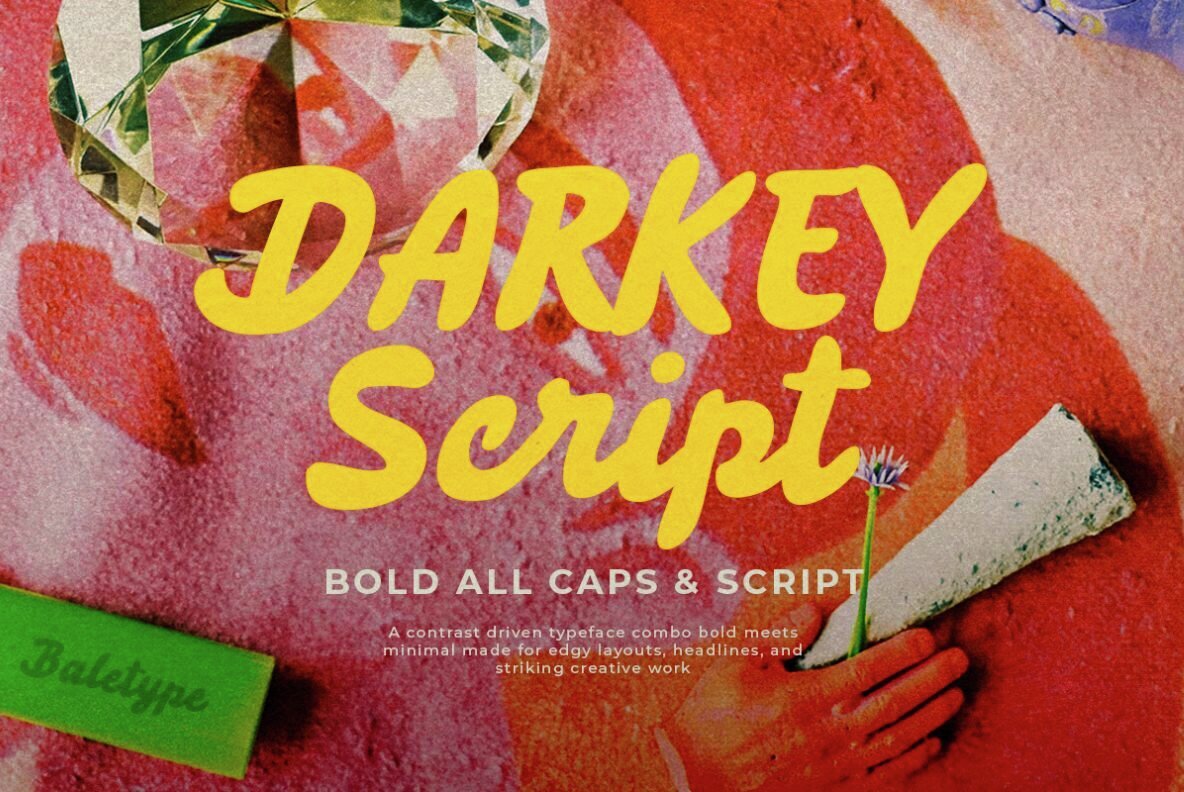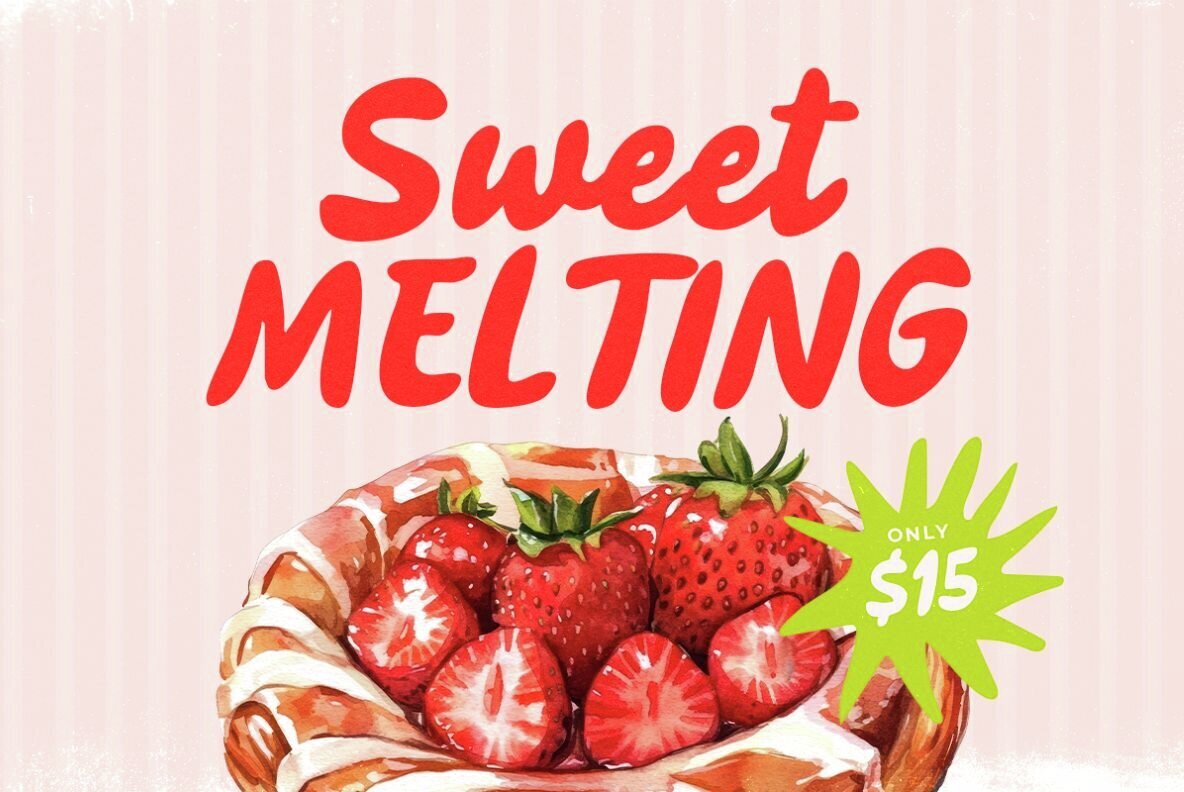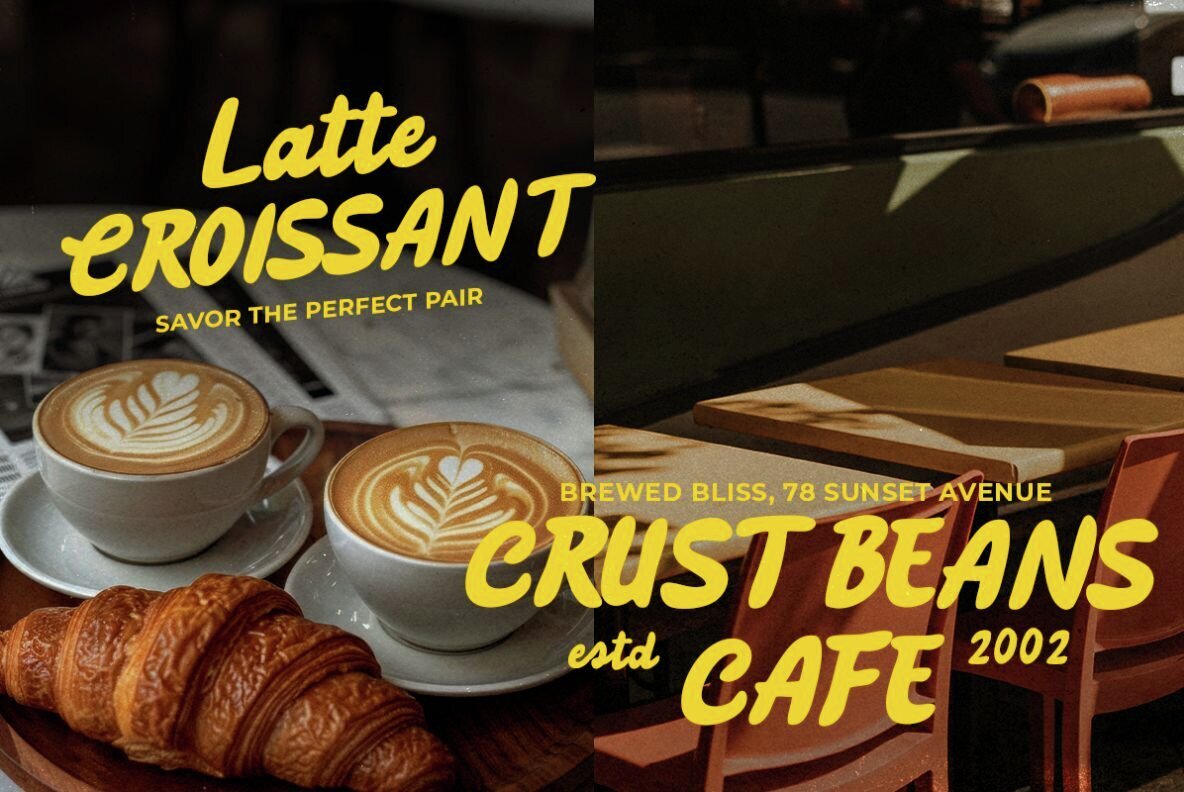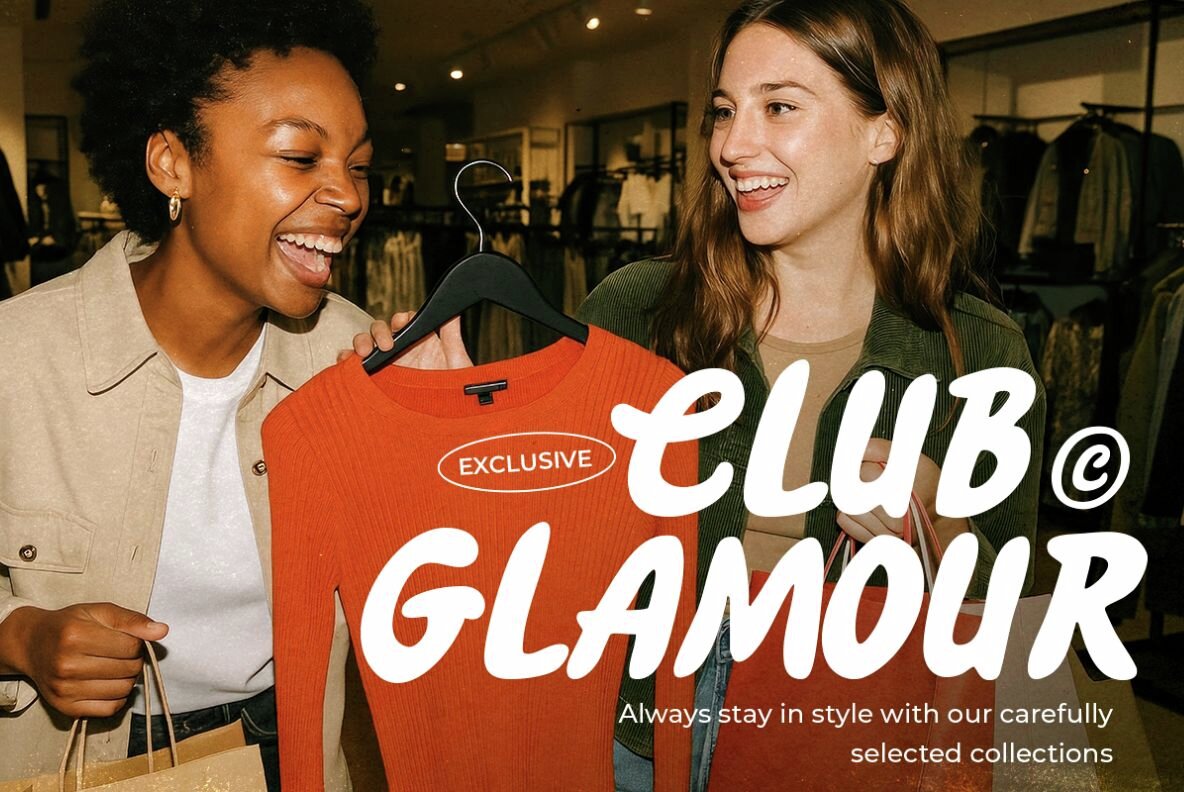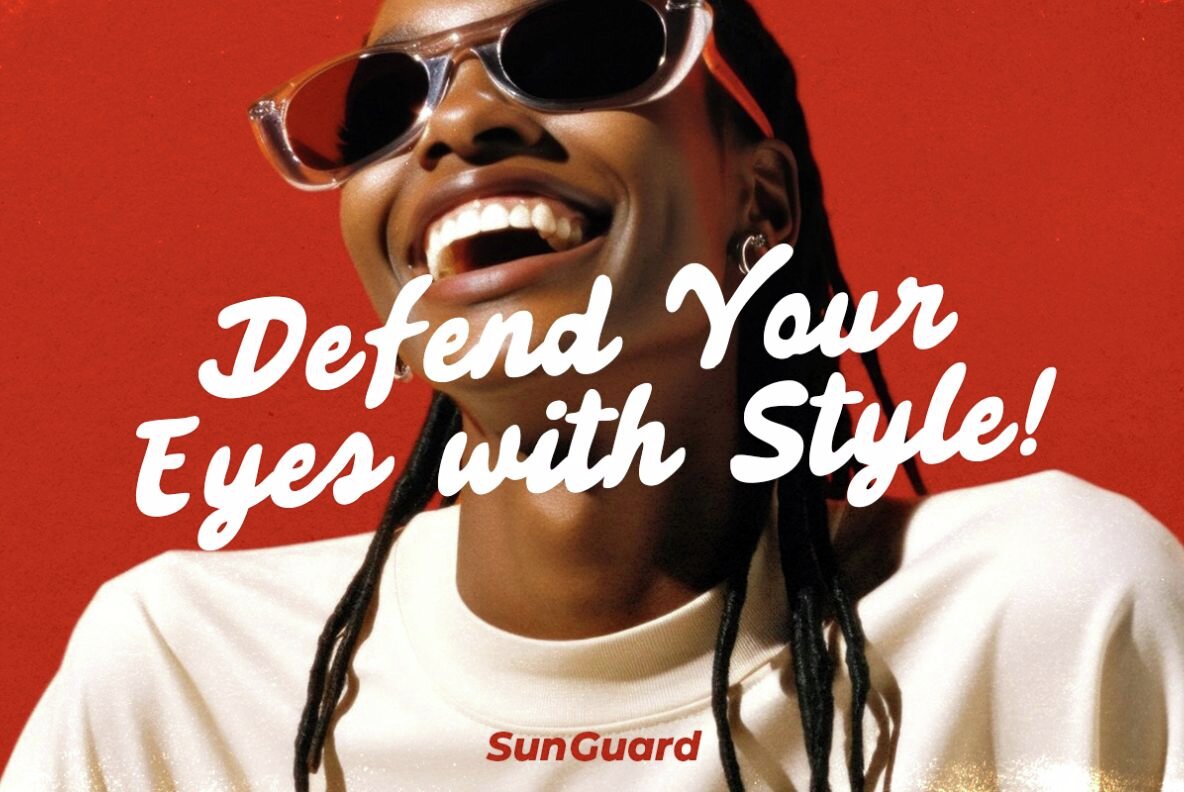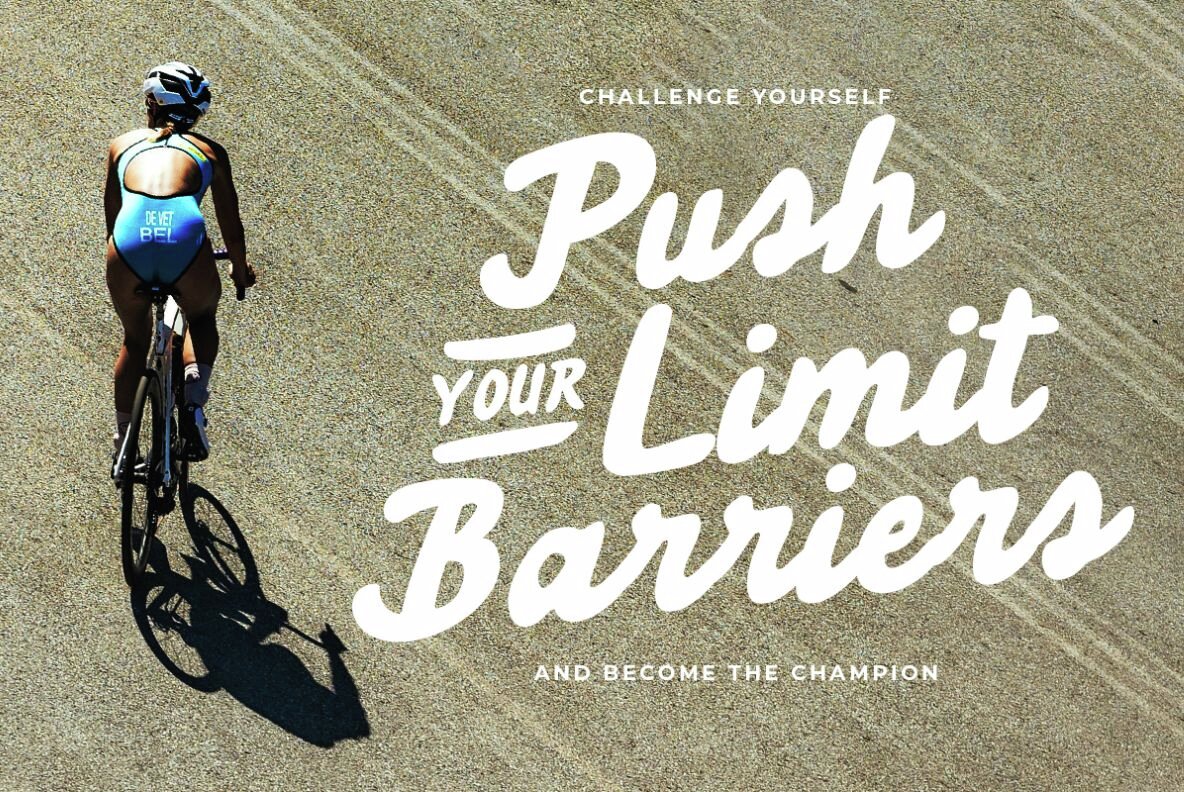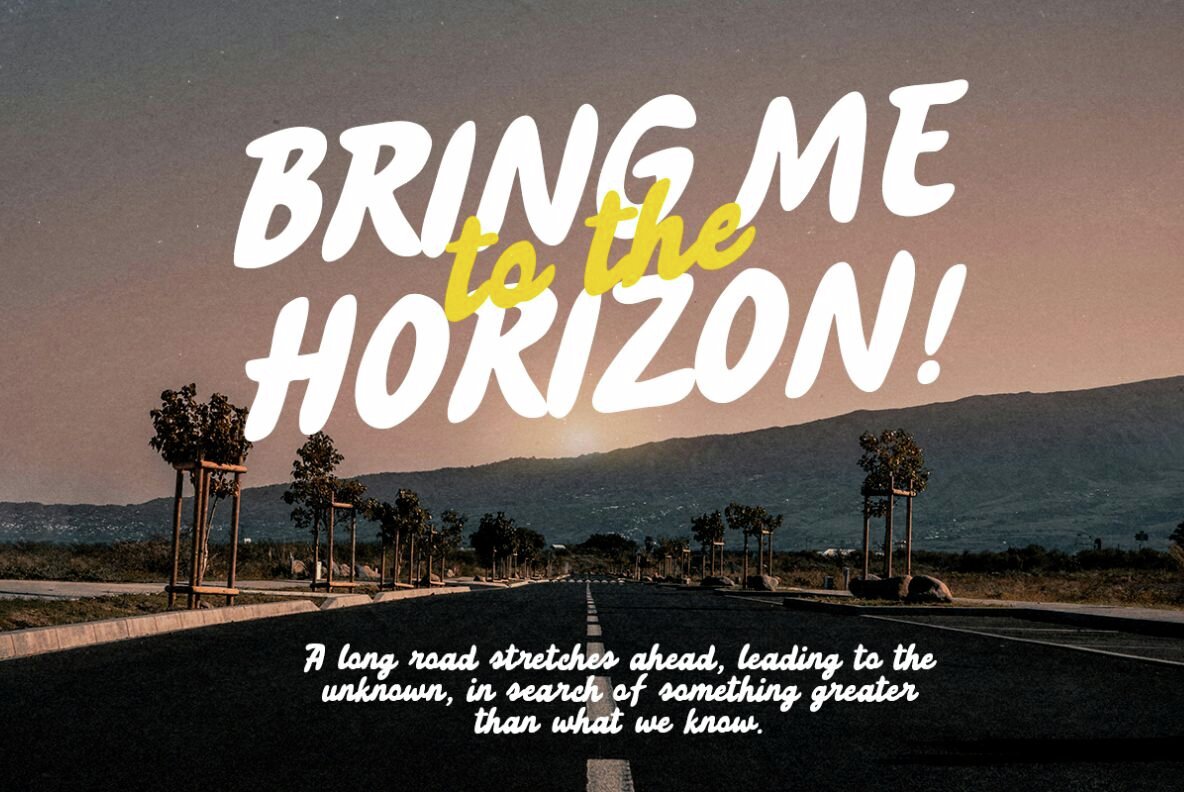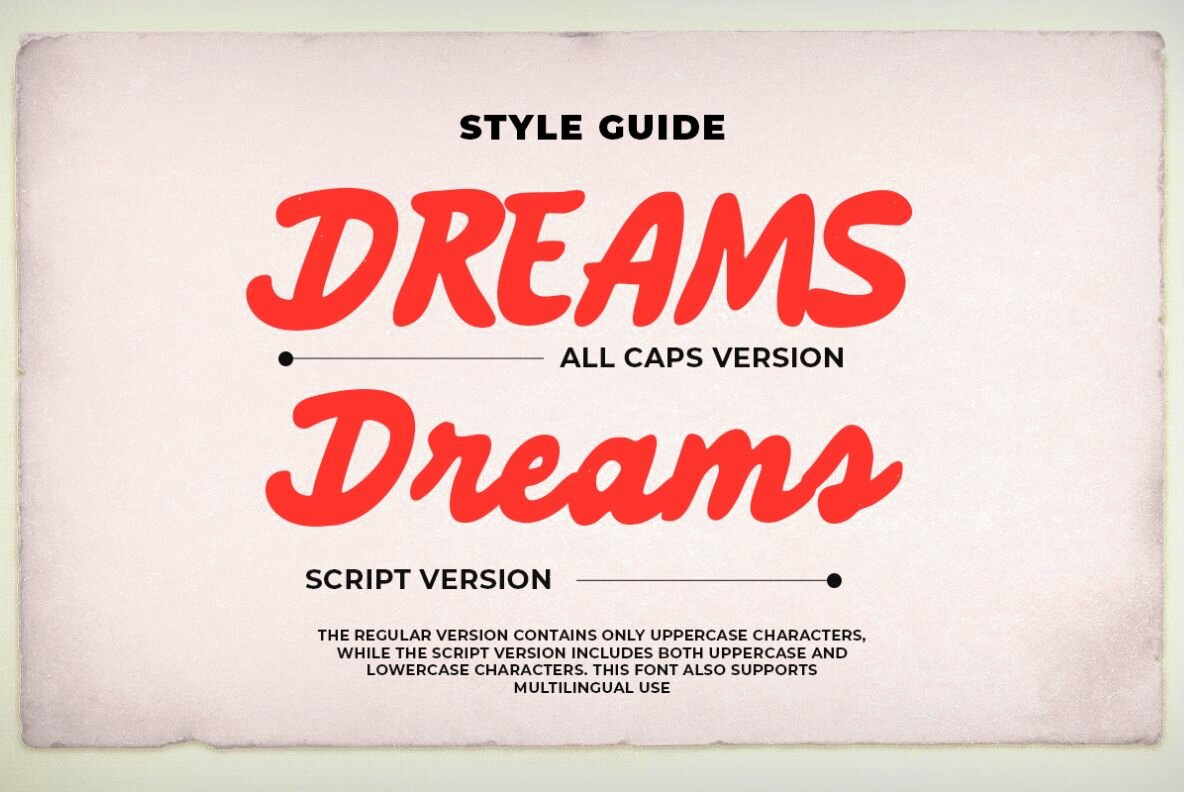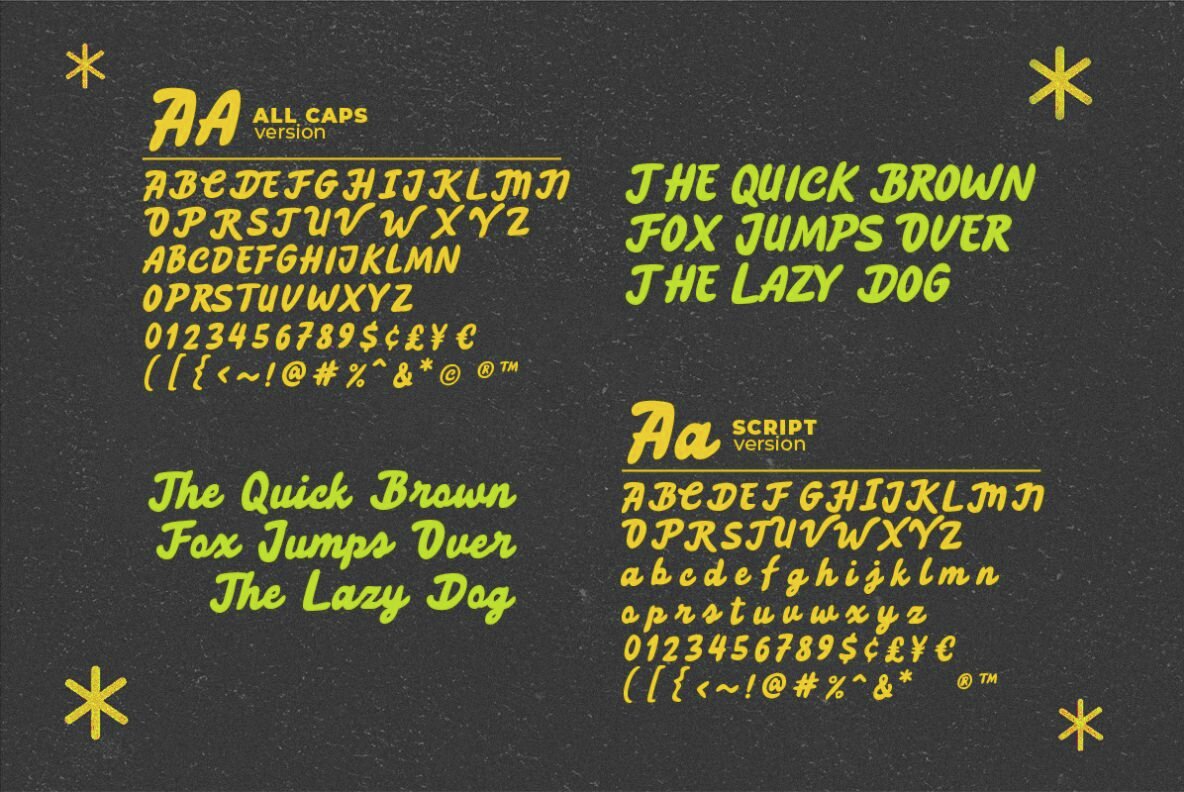
Darkey Font
Darkey Caps
Darkey Script
Discover the versatile charm of Darkey, a bold handwritten font by Bale Type featuring two distinctive styles: All Caps and Script. These fonts are designed to work harmoniously together, making them perfect for a wide range of design projects. Whether you're creating a standout branding piece, an eye-catching logotype, or a memorable quote, Darkey adds a unique flair that captures attention. Transform your design projects with the bold aesthetics and seamless functionality of Darkey, and make your creative vision come to life with ease.Darkey Font Collection